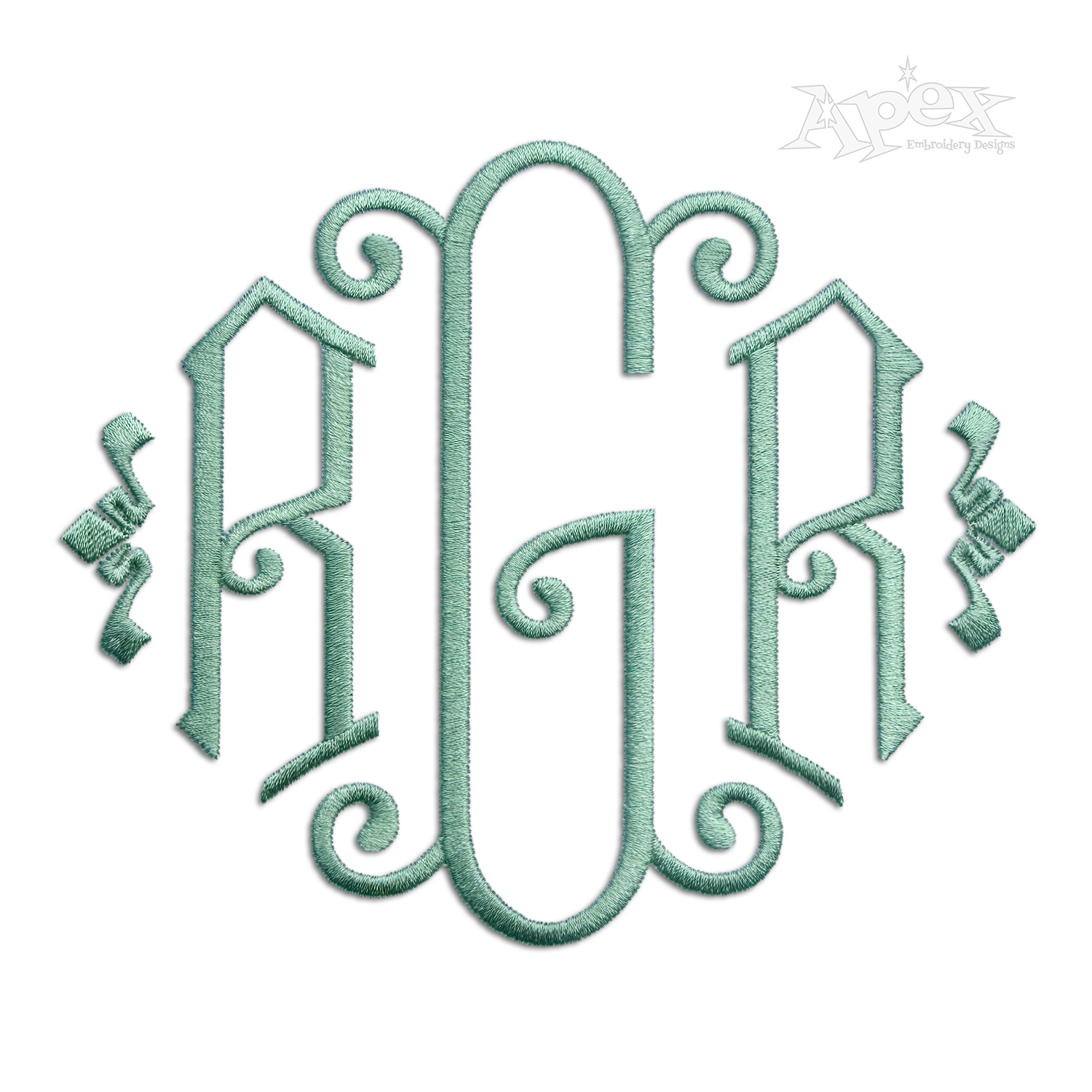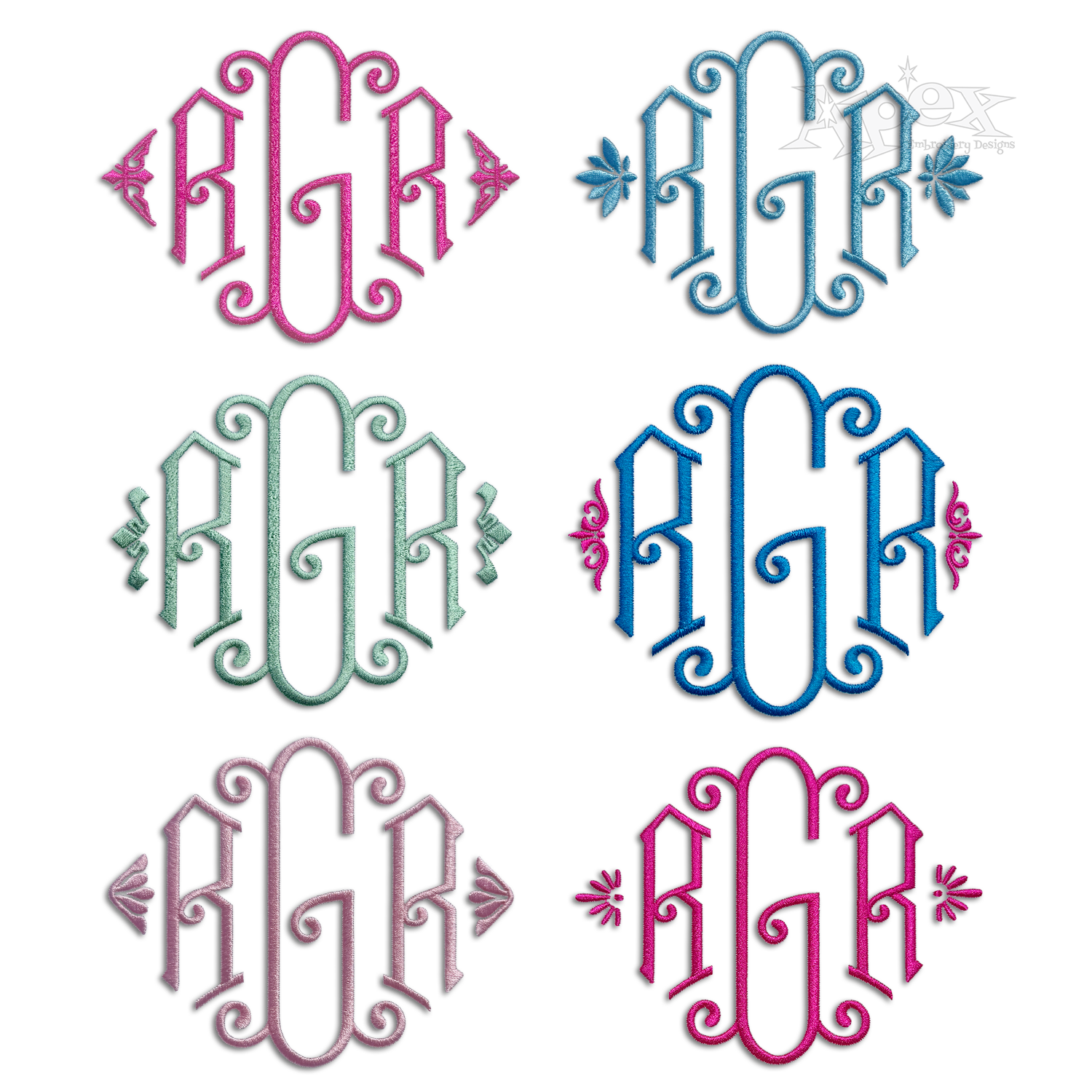
Victoria Monogram Embroidery Font
There is an unmistakable grace in the architecture of a classical monogram—a quiet grandeur that turns everyday textiles into storied family treasures. Inspired by the stately monograms adorning late nineteenth-century European trousseaus, the Victoria Monogram Embroidery Font was hand-digitized to capture that timeless aristocratic charm. Crafted as a traditional three-letter interlocking composition, each initial balances strong, dignified vertical stems with ornate, sweeping flourishes that dance across the fabric. The resulting design brings an authentic heirloom embroidery sensibility to the modern atelier, lending polished authority to fine linens, bespoke apparel, and personalized gifting.
Project Ideas for Victoria Monogram
Designed for multi-generational appeal, the Victoria Monogram flourishes across an array of bespoke textile applications:
- Heirloom Bedding & Table Linens: Frame crisp percale pillowcases, hemstitched European dinner napkins, and raw-linen table runners with timeless family initials.
- Bridal Trousseau & Keepsakes: Personalize pure silk dressing gowns, ring bearer pillows, and heirloom bridal handkerchiefs for an unforgettable wedding morning touch.
- Bespoke Resort Wear: Elevate woven sun hats, monogrammed linen cover-ups, and plush cabana terry robes for a tailored, holiday-ready aesthetic.
- Luxury Travel & Everyday Accessories: Stitch distinctive marks onto heavy canvas weekender bags, garment covers, cashmere travel blankets, and tailored cosmetics pouches.
Achieving the perfect monogram requires harmonizing the scale of the motif with the natural drape and orientation of the garment or home good:
- Dinner & Cocktail Napkins: Position the monogram diagonally across the lower corner, placed 1.5 to 2 inches inward from the hemstitched edge, so the lettering sits upright when folded into a pocket or triangle.
- Bridal Robes & Loungewear: Embroider the 2-inch or 3-inch size directly over the left chest, or center the large 3-inch monogram high across the upper shoulder blades on the back yoke for high visual impact.
- Bed Pillows & Decorative Shams: Center the 3-inch composition horizontally and vertically on standard shams, or place it along the broad cuff hem of flat sheets positioned to read correctly when turned down over a duvet.
- Tailored Shirts & Cuffs: Utilize the understated 1-inch scale centered upon the left cuff, positioned roughly 1 inch away from the cuff opening toward the sleeve placket.
Victoria Monogram Craft & Letterform Details
Every curve, hairline serif, and sweeping terminal in the Victoria Monogram has been painstakingly digitized to ensure flawless execution in the hoop. Rather than relying on automated conversions, each letterform features manually plotted stitch paths that follow the natural curvature of the alphabet. The grand central letter commands attention with wide, lustrous satin columns, while the complementary flanking initials taper delicately to embrace the center without crowding its silhouette.
Beneath the surface, a structural dual-layer underlay supports every stroke, anchoring the fabric weave and preventing puckering while lending a raised, dimensional loft that catches the ambient light. Meticulous stitch density gradations at intersecting strokes eliminate thread bunching, ensuring clean, sharp intersections and smooth, uninterrupted satin sheen from start to finish. The result is a stitch-out of impeccable clarity that stands up to laundering and time, honoring the true tradition of bespoke craftsmanship.